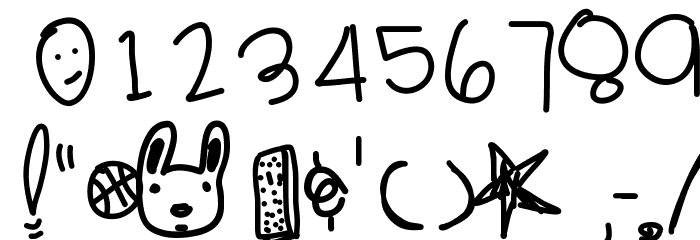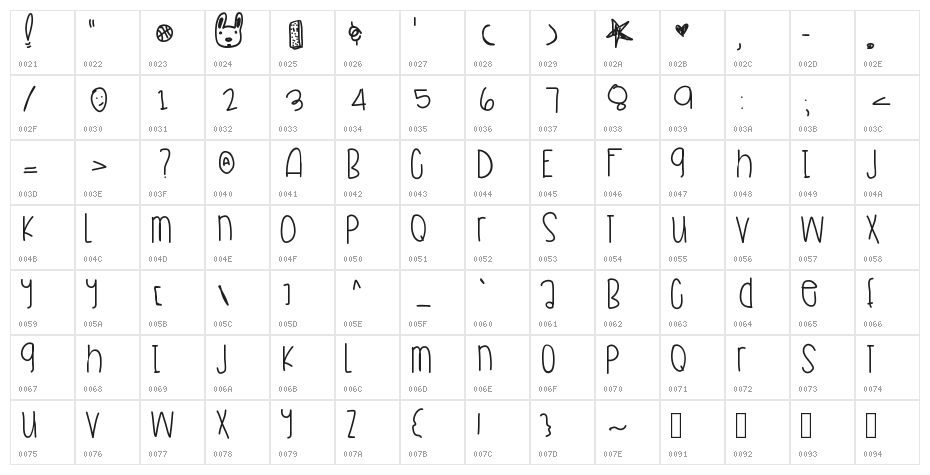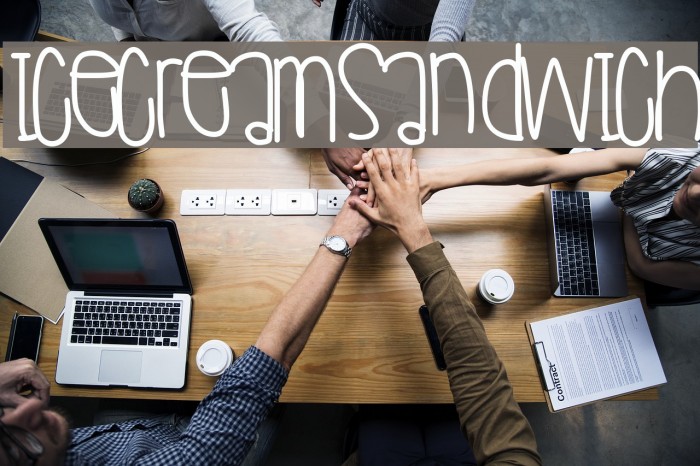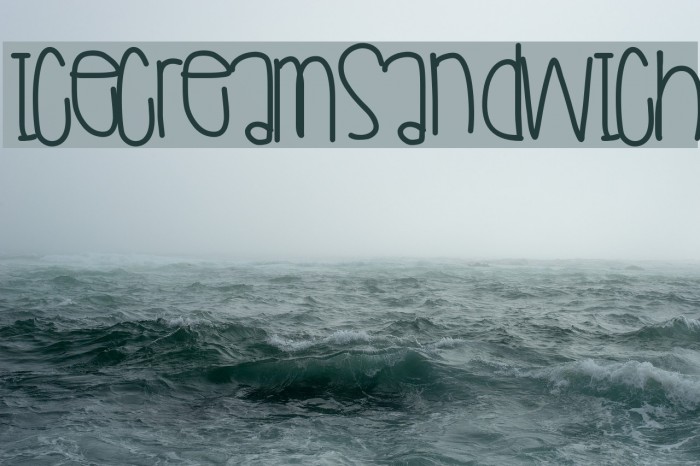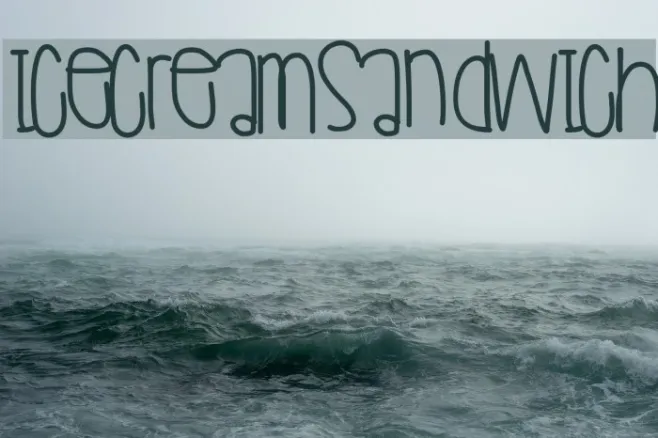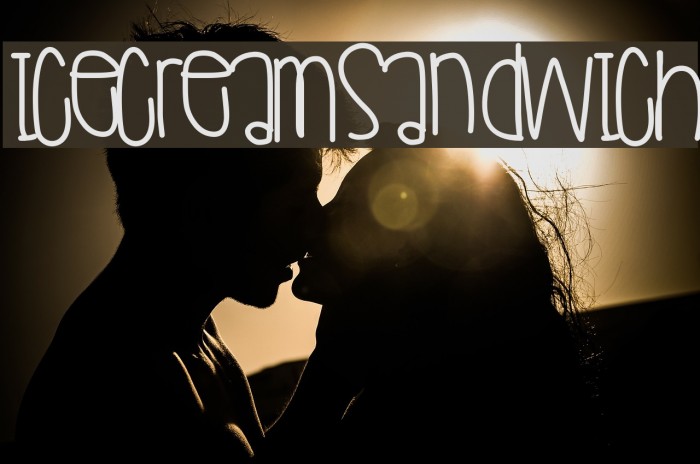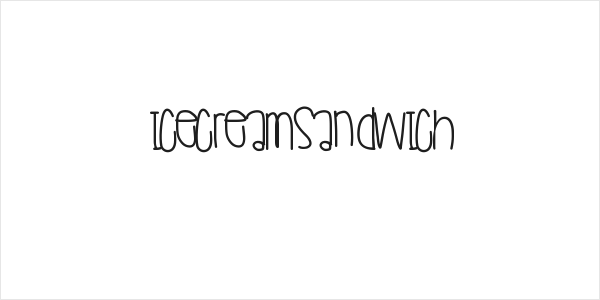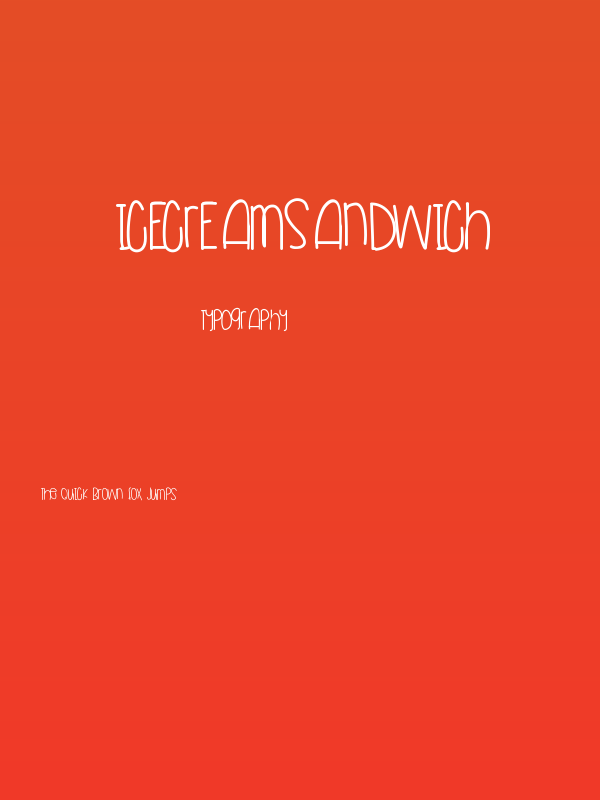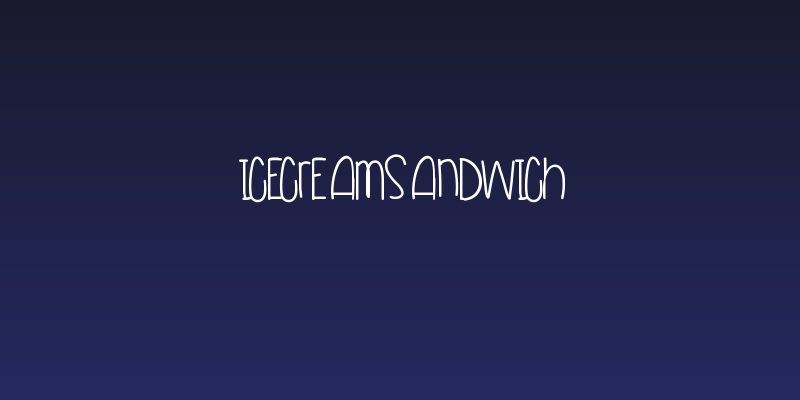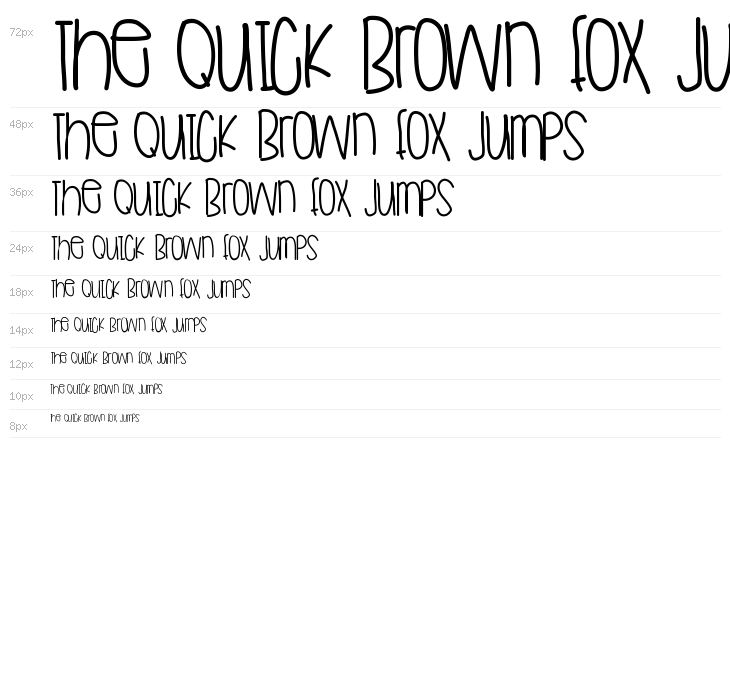
IceCreamSandwich Font
IceCreamSandwich Description
This playful and whimsical font features tall, narrow letters with a handwritten style. The characters have a consistent stroke width, giving them a clean and uniform appearance. The uppercase and lowercase letters maintain a quirky, childlike charm, while the numbers and special characters add to the font's unique personality. The overall design is casual and fun, making it suitable for projects that require a lighthearted and approachable feel.
| Proposed Projects | Ideal for children's books, playful branding, greeting cards, and casual invitations. |